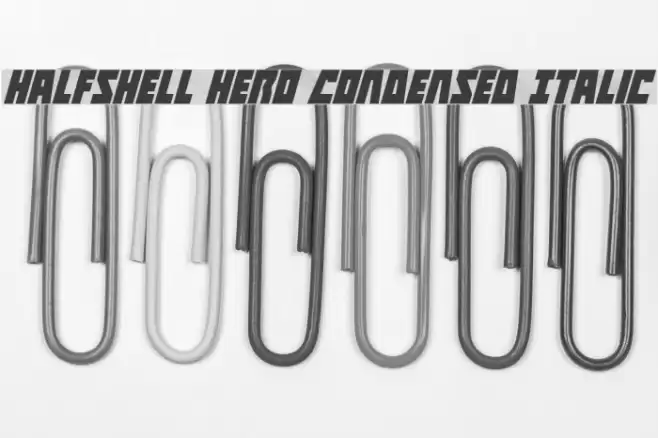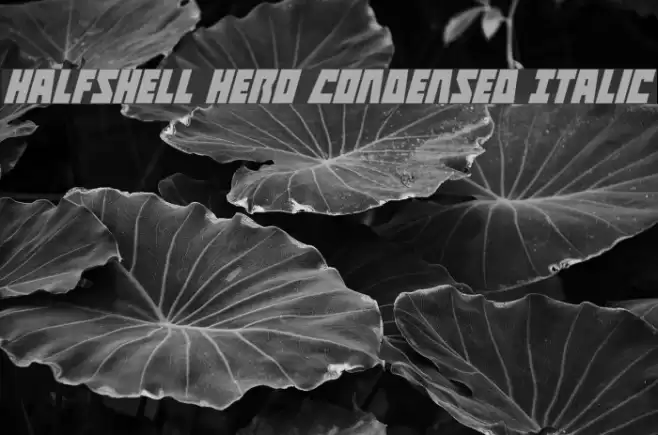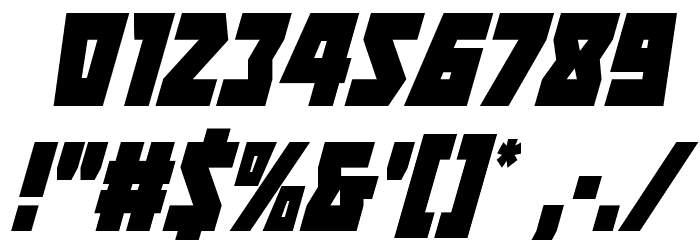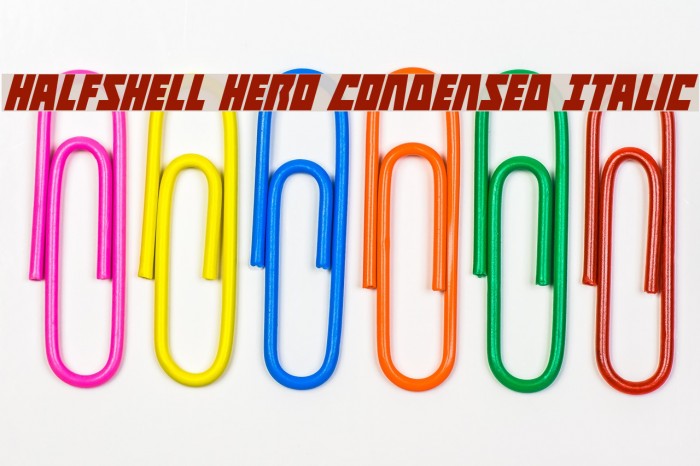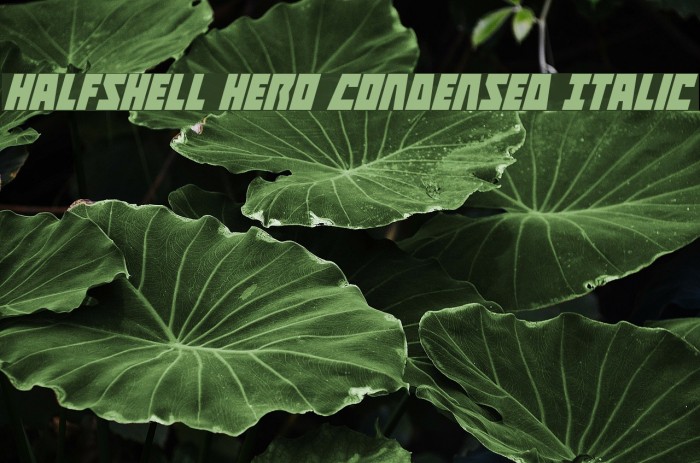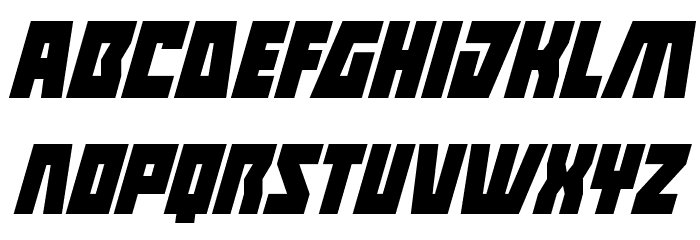
Halfshell Hero Condensed Italic Font
Halfshell Hero Condensed Italic Description
This font features a bold and dynamic design with a condensed and italicized style. The characters are sharply angled, giving them a sense of movement and energy. The uppercase and lowercase letters maintain a consistent width, enhancing the condensed appearance. The numbers and special characters follow the same angular and bold design, ensuring uniformity across all glyphs. This font's strong geometric shapes and sharp edges make it stand out, ideal for projects that require a modern and impactful look.
A bold, condensed, and italicized font with sharp, dynamic angles from Uncategorized fonts.
- Proposed Projects: Ideal for sports branding, action-themed posters, video game titles, and dynamic logo designs.